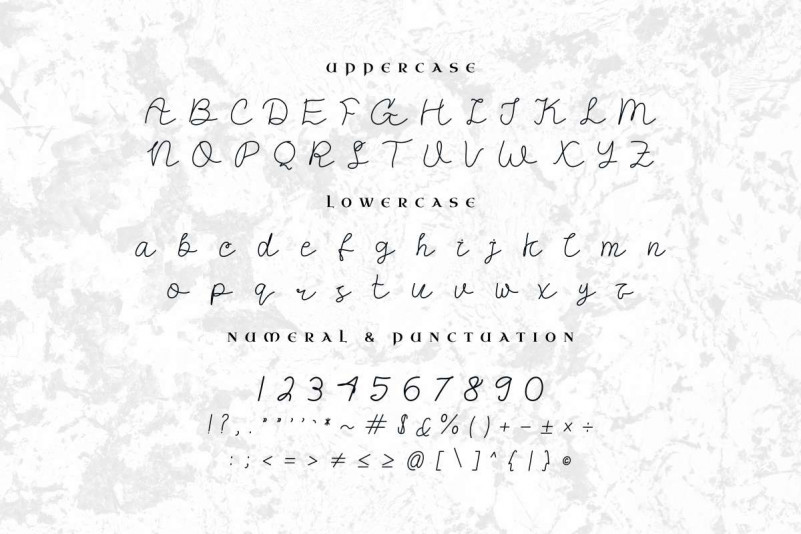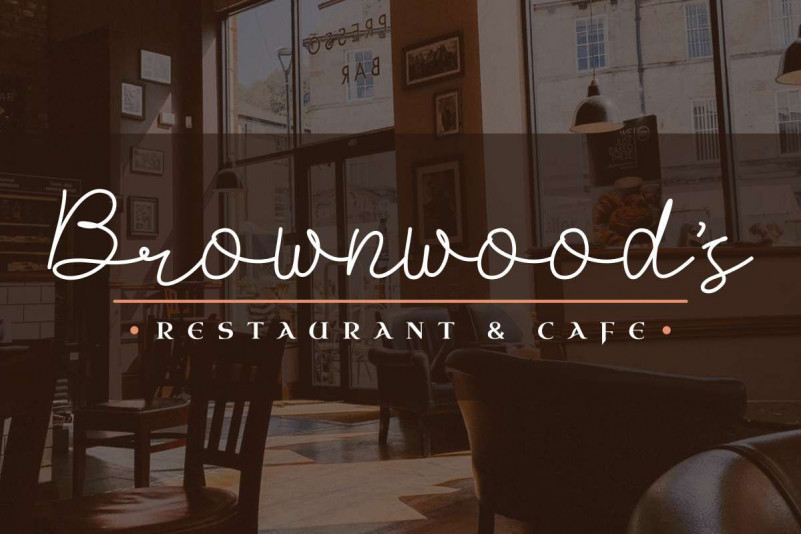
Mallisa Handwritten Font
Hola Good People! Please welcome our latest font : Mallisa Handwritten font! This is a new script handwritten style font. It has a beautiful and stylish glyphs. Will be awesome for any designs projects.